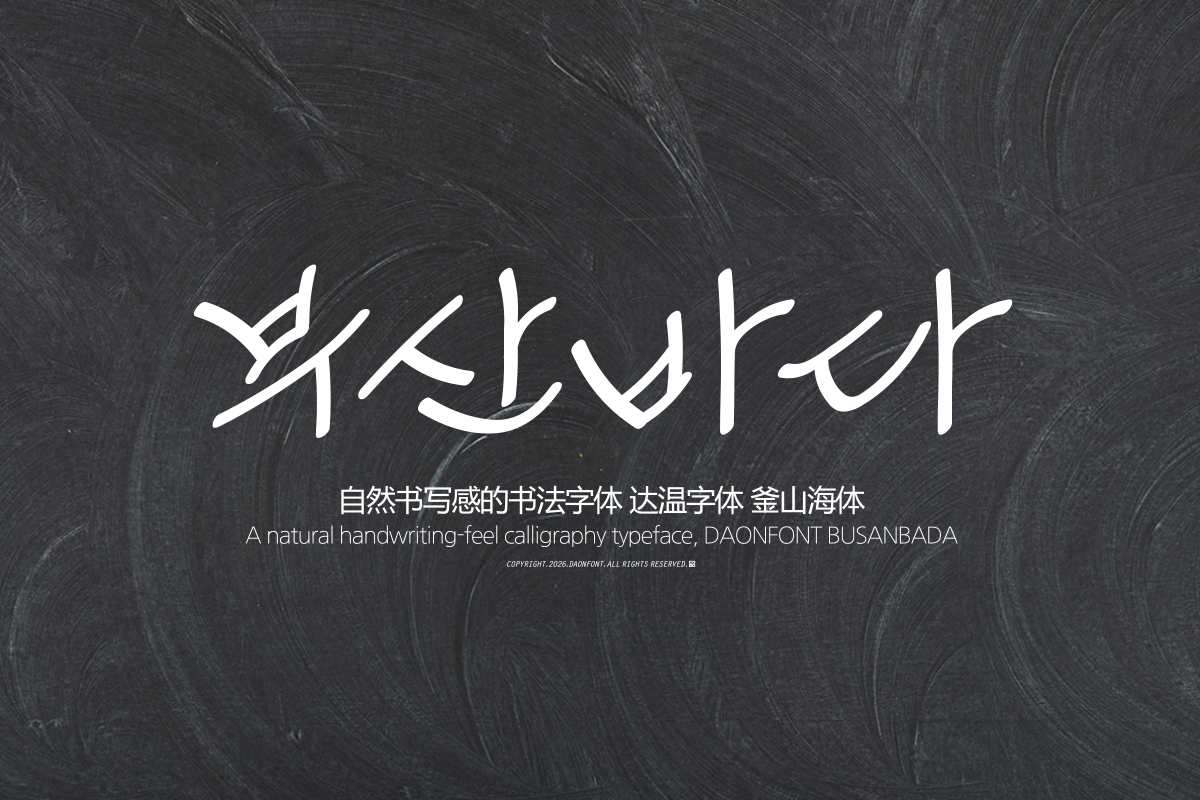
DAON BUSANBADA(B)
DaonFont 'BUSANBADA' is a penmanship-style Hangul typeface distinguished by strokes that flow freely like ocean waves. The strokes are generally thin and sharp, and finish at the beginning and end of the characters as if a pen were quickly skimming, conveying a refreshing and lively impression.